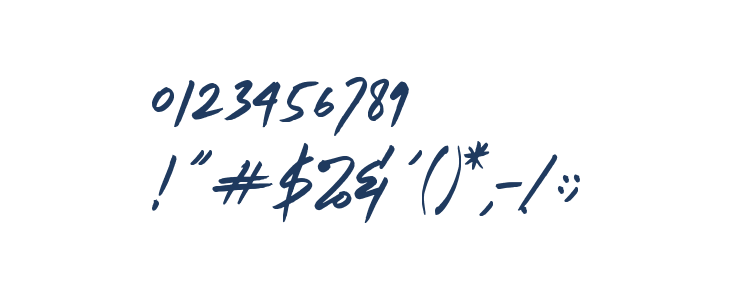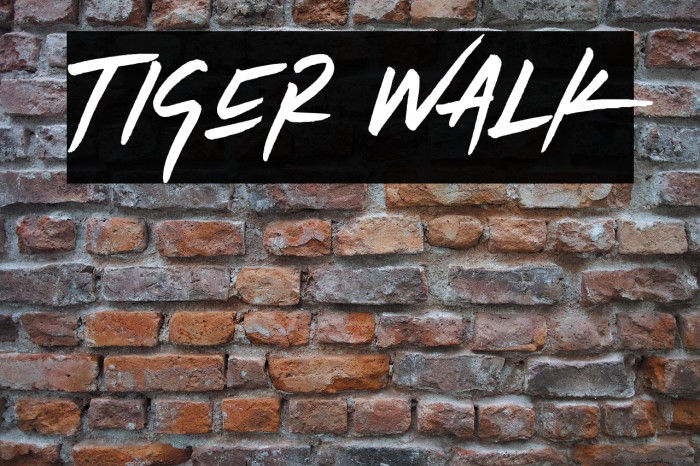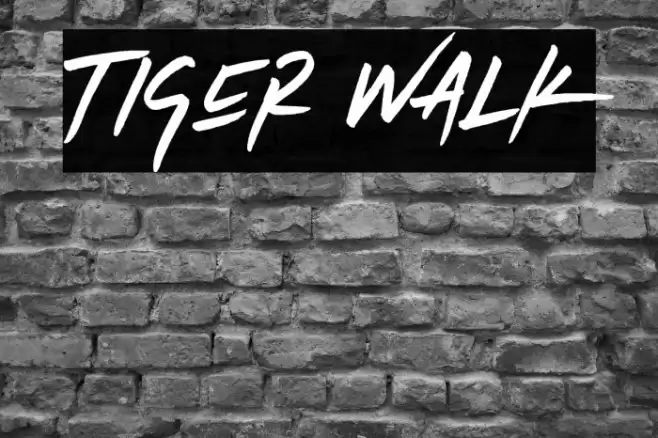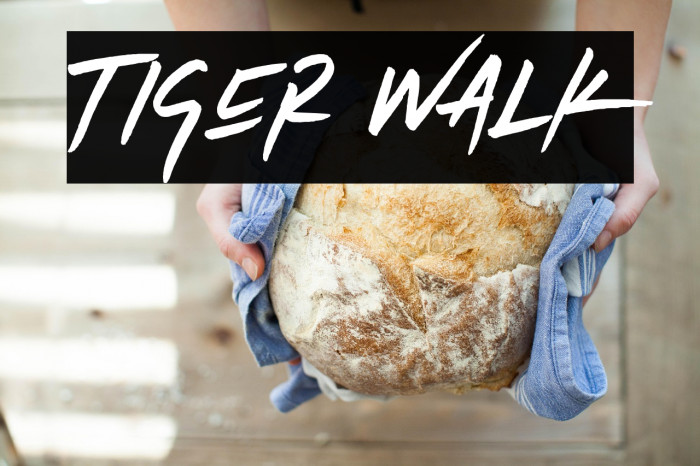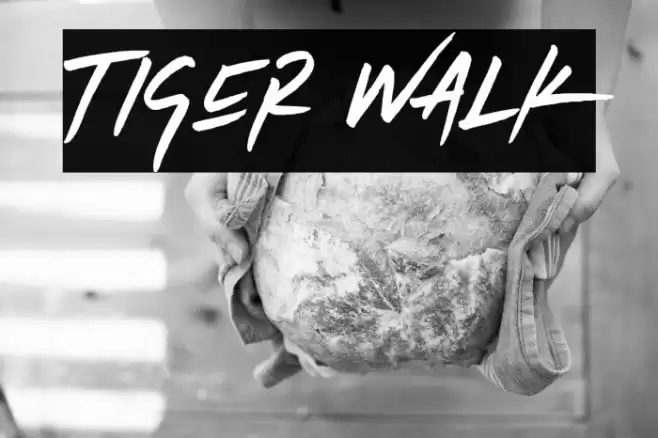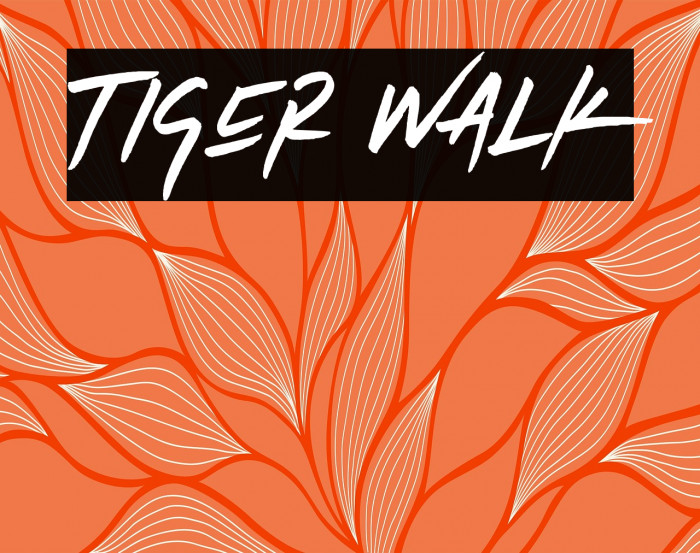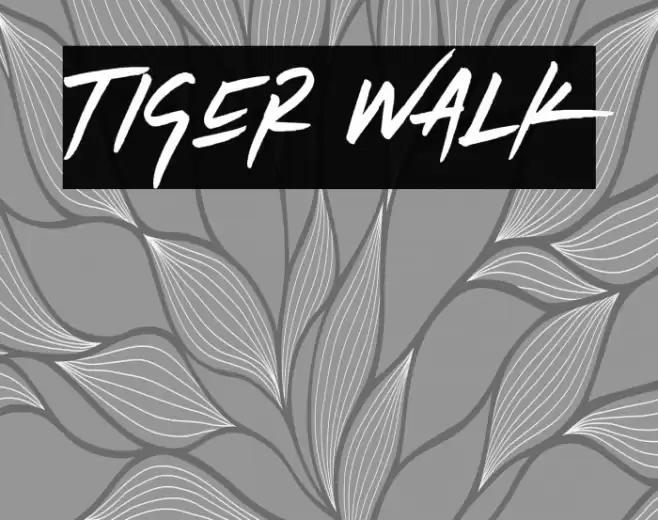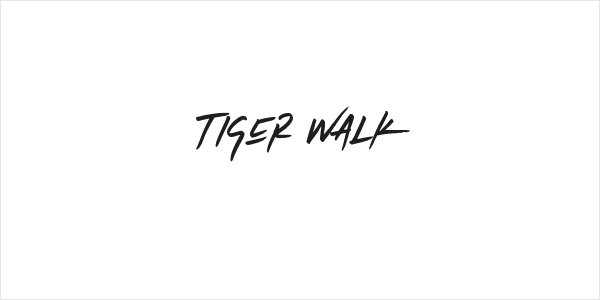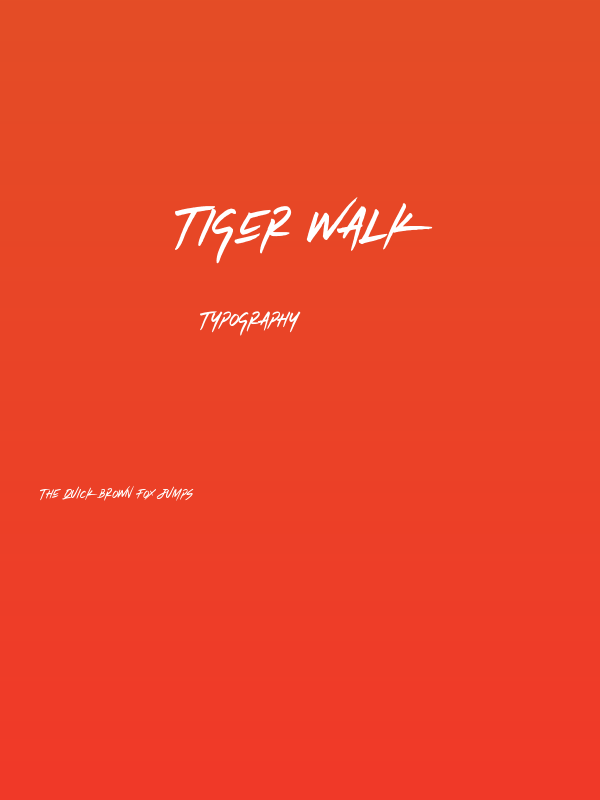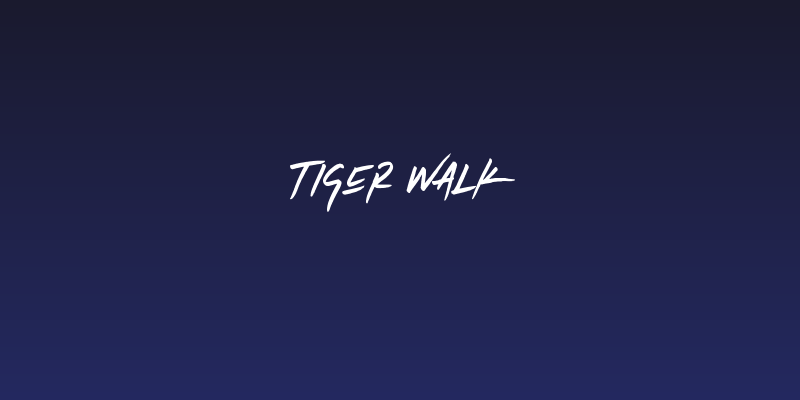
Tiger Walk Font
Tiger Walk Description
This font exudes a dynamic and energetic style, characterized by its bold, flowing script that mimics the fluidity of handwriting. The letters are slightly slanted, adding a sense of motion and spontaneity. The strokes are thick and consistent, giving the text a robust and confident appearance. The uppercase and lowercase letters maintain a cohesive look, while the numbers and special characters integrate seamlessly, ensuring versatility across various applications. The overall design is both modern and expressive, making it ideal for projects that require a personal touch.